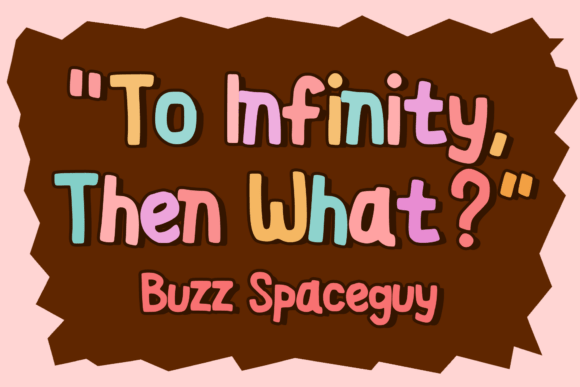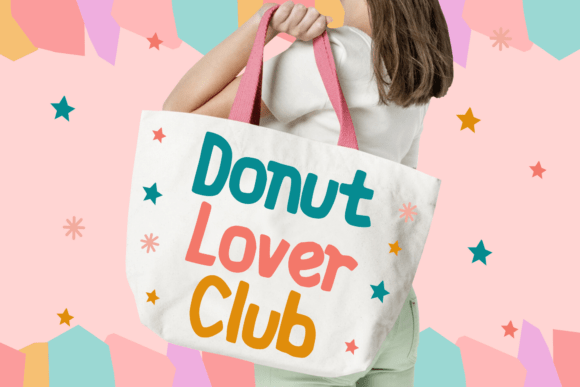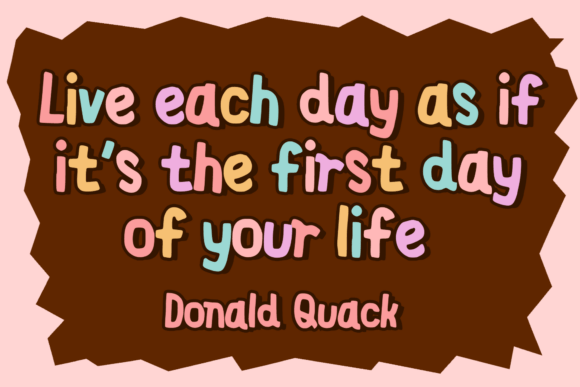
Introduction to Fancy Junior Font
Fancy Junior is a fun, cute font that you can use for many designs themes.
It will elevate a wide range of design projects to the highest level You can use this font for many design ideas such as stickers, t-shirt designs, amazing logo designs, magazine or book covers, comics, cartoon drawings, daily typing, and many more.
Key Features of Fancy Junior Font
Why Choose Fancy Junior Font?
Fancy Junior Font offers exceptional quality and versatility, making it a valuable addition to your design toolkit. Whether you’re creating for personal projects or commercial use, Fancy Junior Font delivers professional results.